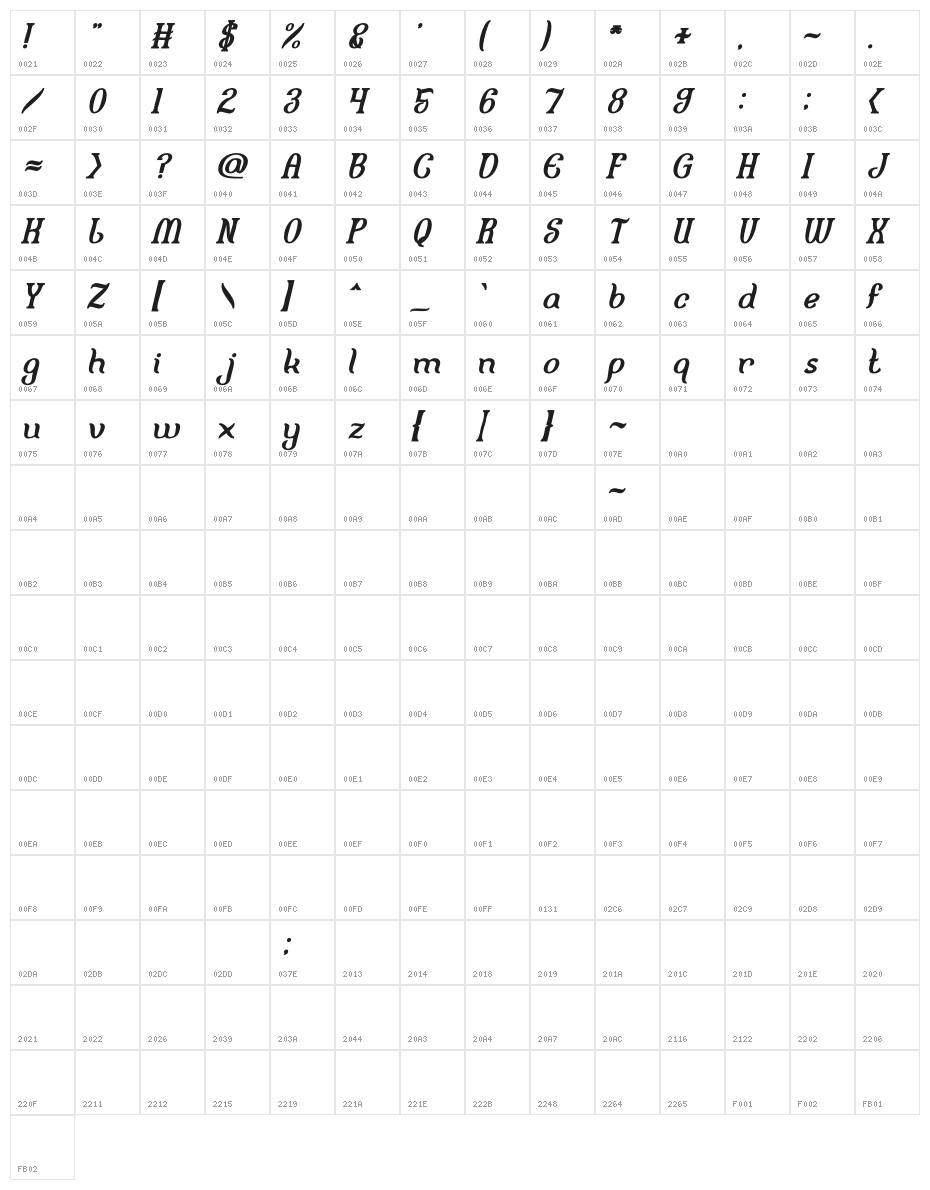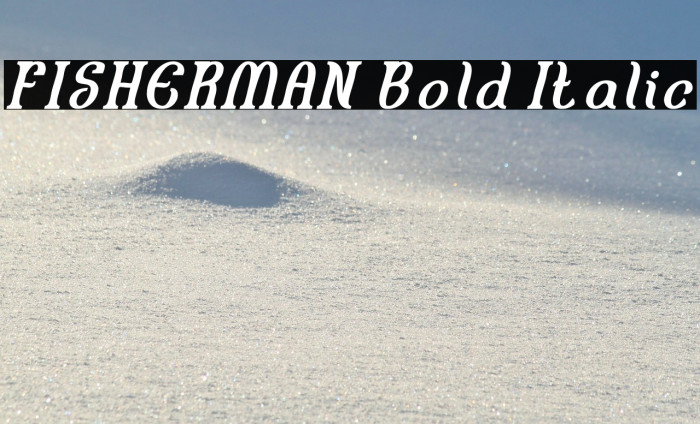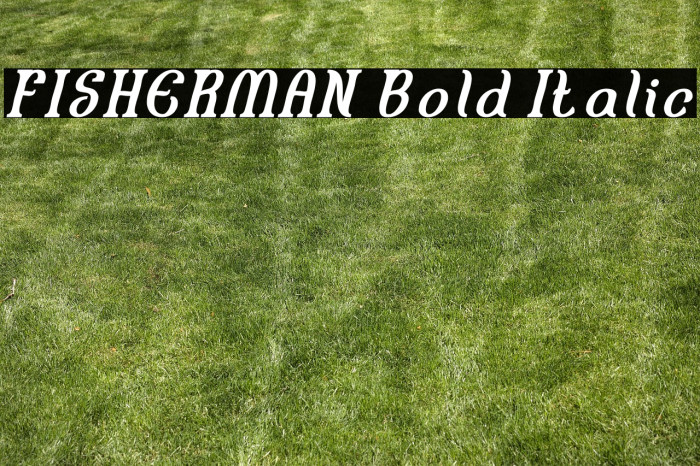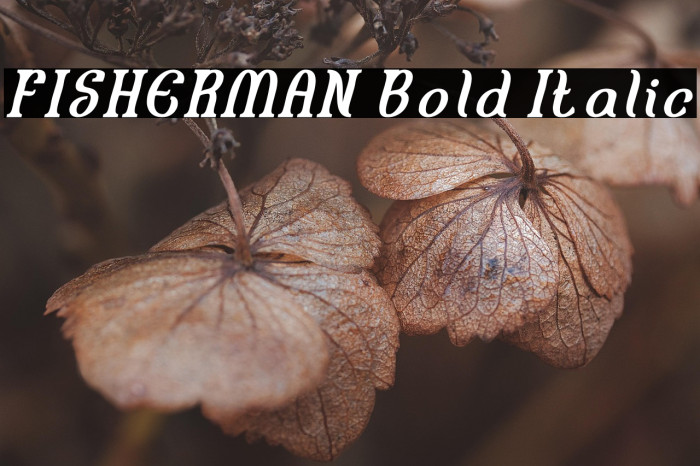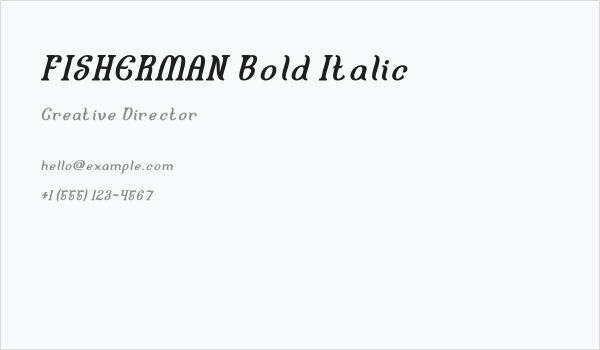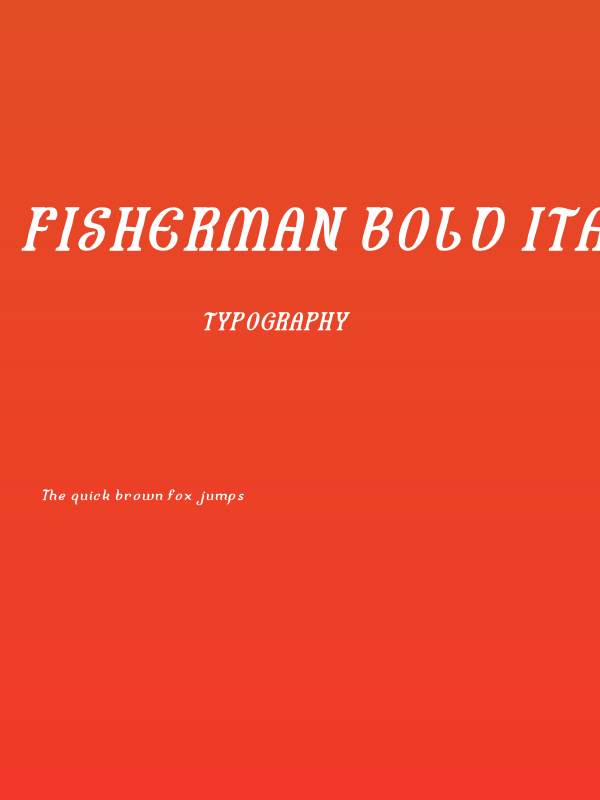
FISHERMAN Bold Italic Font
FISHERMAN Bold Italic Description
This font features a bold and italic style with a distinctive flair, combining elements of both script and serif typography. The uppercase letters exhibit a strong presence with slightly exaggerated curves, while the lowercase letters maintain a consistent flow, enhancing readability. The numerals are robust and align well with the overall design, making them suitable for impactful displays. Special characters are crafted with attention to detail, adding to the font's versatility. The strokes are thick, providing a high contrast that emphasizes the boldness of the design. This font is ideal for projects that require a touch of elegance and strength.
| Proposed Projects | Suitable for branding, headlines, posters, and any design requiring a bold statement. |